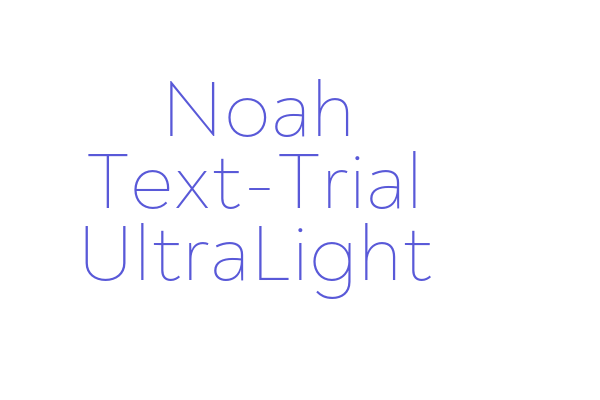
Noah Text-Trial UltraLight is a sleek and modern sans-serif font from the Noah Text-Trial font family. Designed by Svet Simov, Radomir Tinkov, and Stan Partalev, this font is perfect for projects that require a clean and minimalist look. Its UltraLight style adds a touch of sophistication, making it ideal for branding, editorial design, and digital interfaces.
Font Name: Noah Text-Trial UltraLight
Designer: Svet Simov, Radomir Tinkov, Stan Partalev
Font Family: Noah Text-Trial
Weight: Light